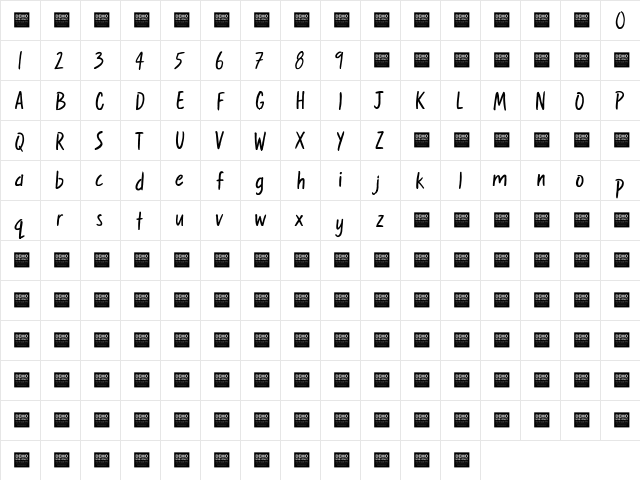
Sweet Nothings - Demo Regular
Design Context for Sweet Nothings - Demo Typeface
Sweet Nothings - Demo is a composed and adaptable typeface that performs quietly and consistently across a wide range of design contexts. Its slender proportions lend an understated elegance to any composition.
Pro Tip: Use Sweet Nothings - Demo in both headline and body roles to test its range before committing to a single application.